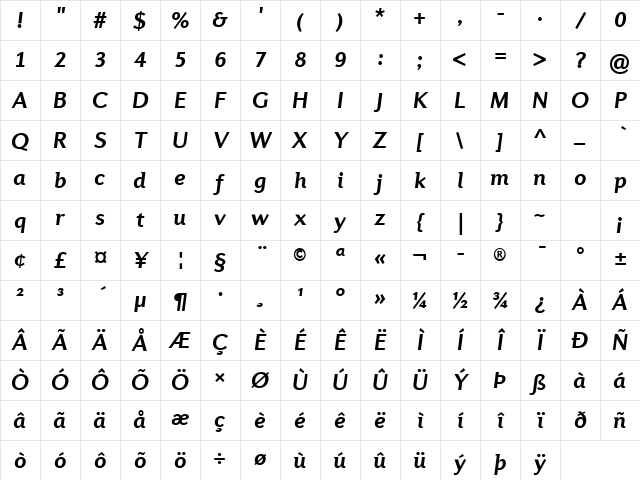
Diverda Sans Com Bold Italic
Designer: Daniel Lanz
Design Context for Diverda Sans Com
Diverda Sans Com is a composed and adaptable typeface that performs quietly and consistently across a wide range of design contexts. The slanted form adds forward momentum and visual energy. Its bold stroke weight gives it real presence on the page.
Pro Tip: Use Diverda Sans Com for emphasis, pull quotes, and subheadings where its slanted energy can add rhythm to the layout.